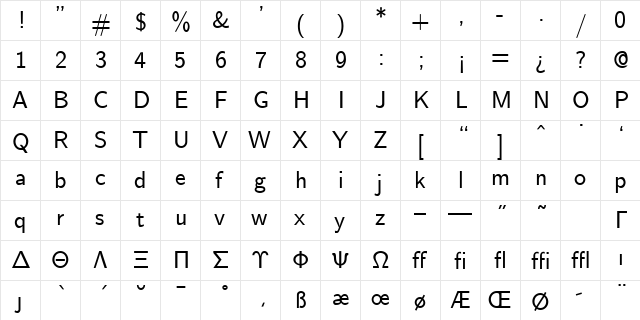
cmss10 Regular Font Preview
cmss10 Regular
Design Context for cmss10 Typeface
cmss10 takes a measured approach to typography — its balanced proportions and neutral character make it a reliable workhorse for both digital and print work.